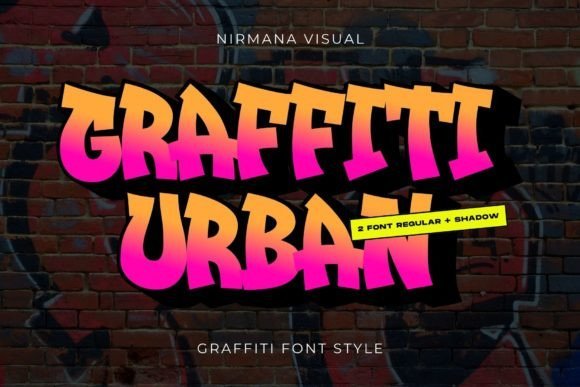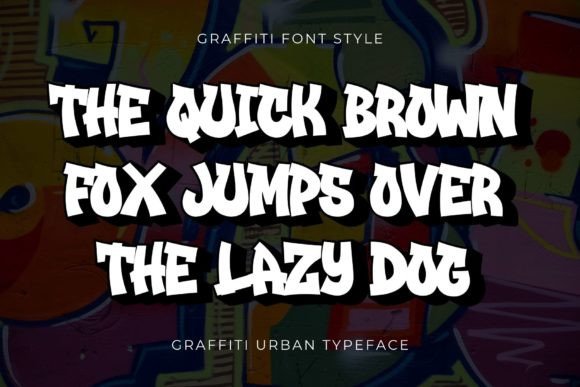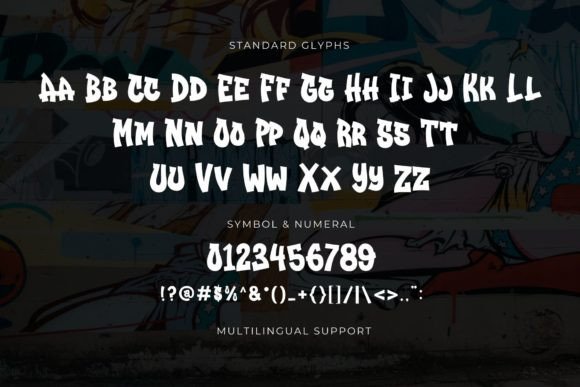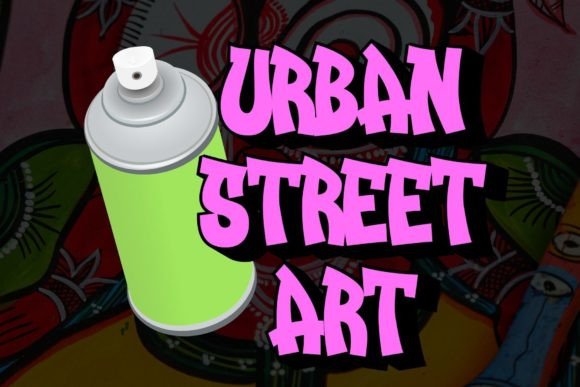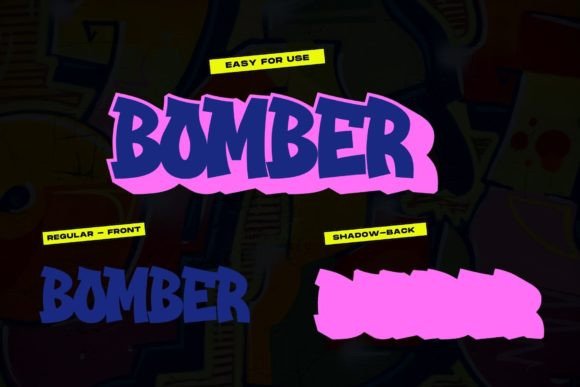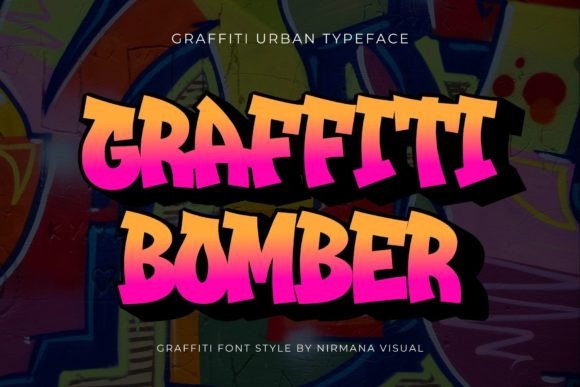
Unleashing the Power of Street Art: Graffiti Urban Font
As designers, we’ve all been there – staring at a blank canvas, trying to spark that creative flame. Sometimes it takes a glimpse of street art to get the imagination flowing. For me, it was a vibrant graffiti mural on a city wall that inspired me to experiment with bold typography. The raw energy and self-expression of graffiti art sparked a new idea: what if we could harness that same spirit in our designs?
Enter Graffiti Urban Font, a beautiful typographic harmony born from the world of graffiti. This stunning font is perfect for logos, branding, social media posts, advertisements, and product designs. With Graffiti Urban Font, designers can tap into the edgy, urban vibe of street art, elevating their projects with a unique visual identity. Its versatility makes it a valuable asset for any designer looking to add a touch of urban sophistication to their work.
Graffiti Urban Font Key Features
- Unique Characteristics: This font boasts a distinctive, hand-drawn style with bold lines and vibrant colors, perfect for adding a touch of urban flair to designs.
- Style Variations: The font family includes multiple styles, including Regular, Bold, Italic, and Bold Italic, allowing designers to experiment with different looks and feels.
Graffiti Urban Font Review
Overall, I think the Graffiti Urban Font is a solid choice for designers looking to add some edge to their projects. Here are some of the things that stand out to me:
- ✨ Unique, bold letterforms that evoke the spirit of street art.
- ✨ A wide range of weights and styles to choose from, making it easy to customize for different applications.
- ✨ High-quality design that’s both modern and timeless.
However, I do think there are some limitations to consider:
- ⚠️ Limited language support, which may be a concern for designers working on multilingual projects.
- ⚠️ Some of the letterforms may be difficult to read in smaller sizes, which could impact readability.
- ⚠️ Not suitable for projects where a more conservative, traditional font is needed.
Overall, I think the Graffiti Urban Font is a great choice for designers who want to add some visual interest to their projects. While it may have some limitations, I think the benefits outweigh the drawbacks.
Tips for Getting the Most Out of Graffiti Urban Font
Use Graffiti Urban Font to add a touch of urban flair to your designs. Experiment with different font sizes and colors to create a unique look. Consider pairing Graffiti Urban Font with other bold or distressed fonts for a cohesive design.
Graffiti Urban Font is perfect for:
- Streetwear and urban fashion branding
- Music and entertainment promotional materials
- Urban lifestyle and culture publications
Alternatives to Graffiti Urban Font
1. Arial Black
Arial Black is a bold sans-serif font, perfect for headings and titles that need to stand out. It is a more classic and traditional choice compared to Graffiti Urban Font, which is more edgy and urban. Use Arial Black when you want a font that exudes professionalism and sophistication.
Comparison: Graffiti Urban Font is more informal and expressive, while Arial Black is more formal and structured.